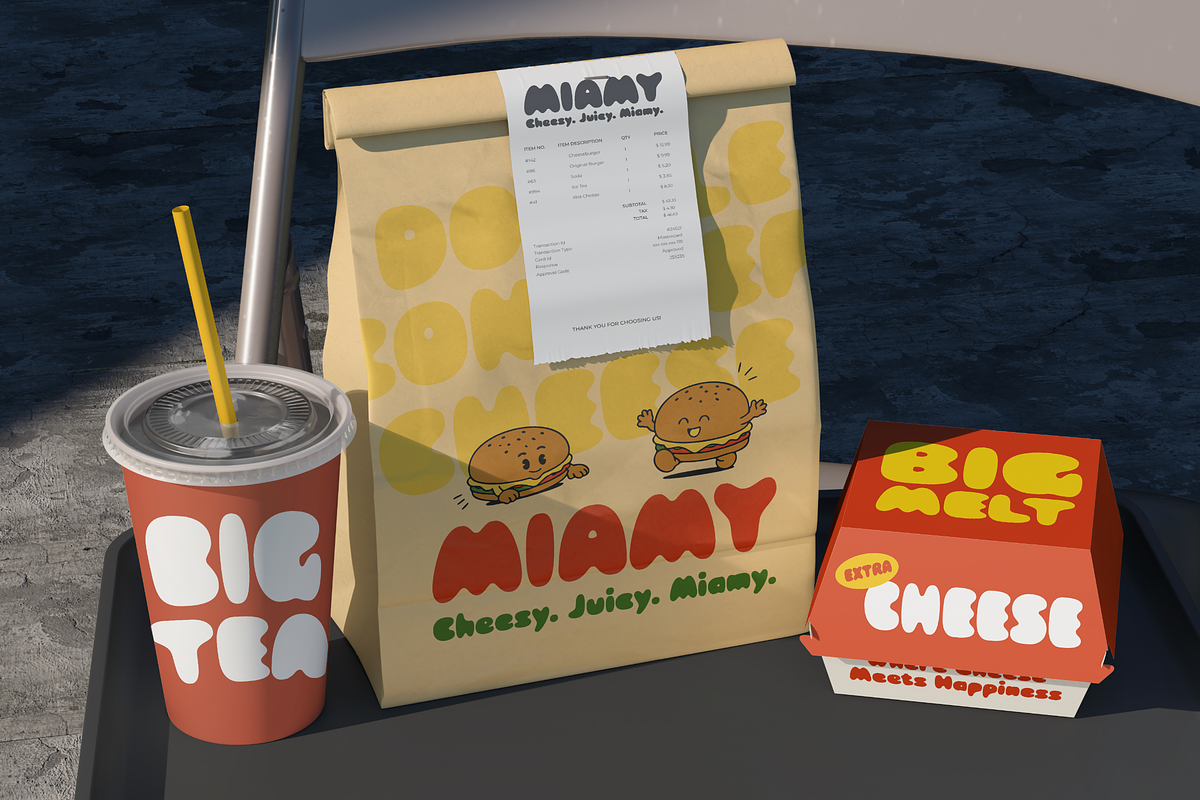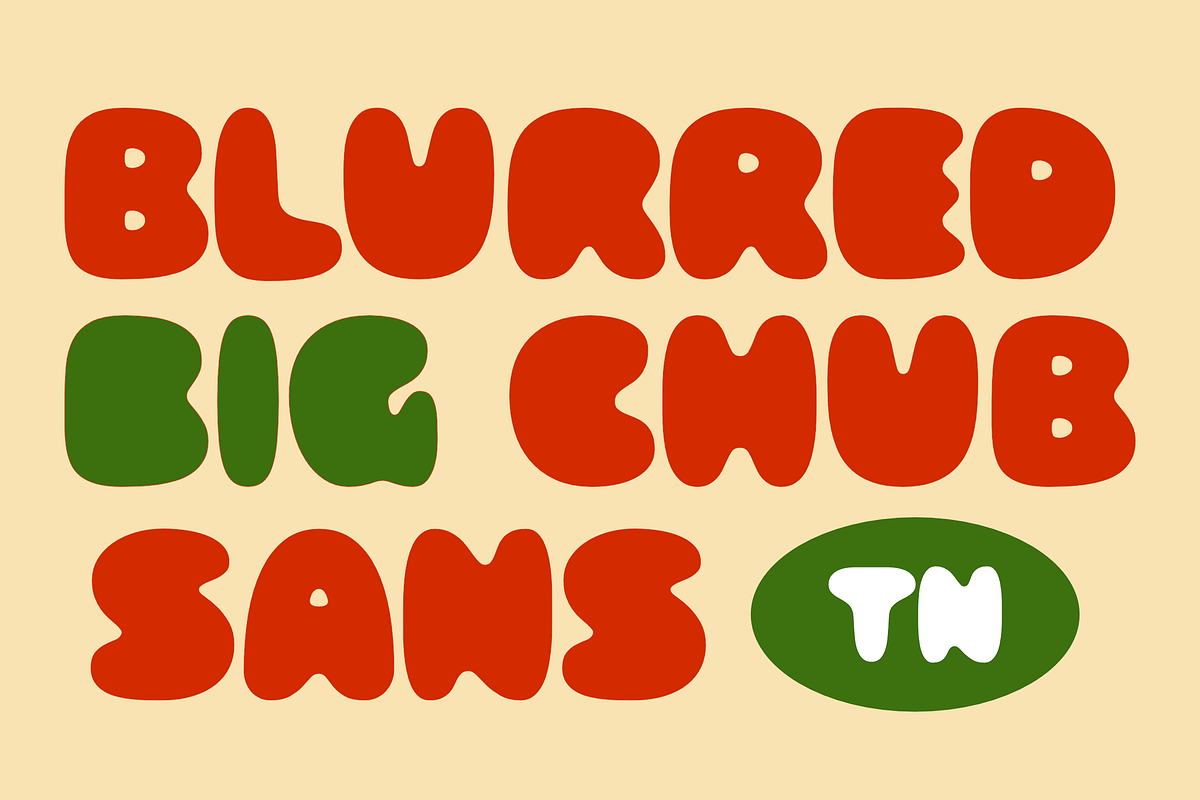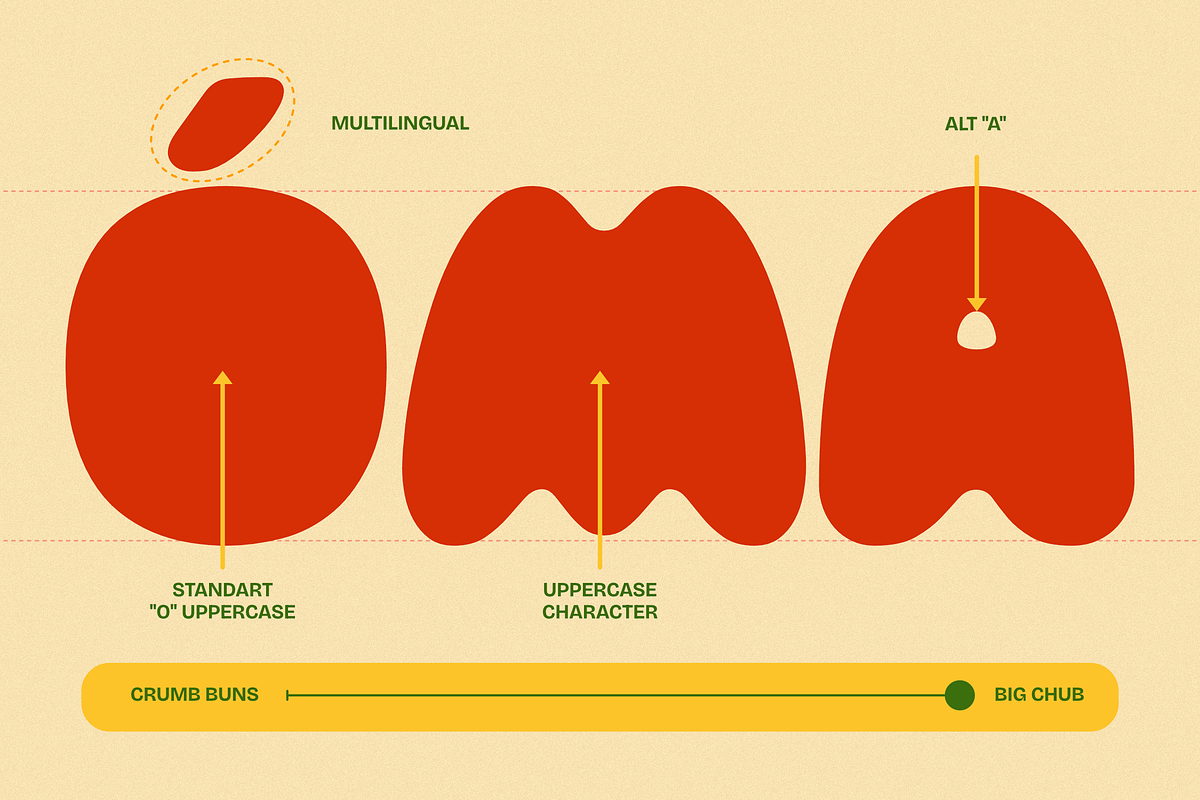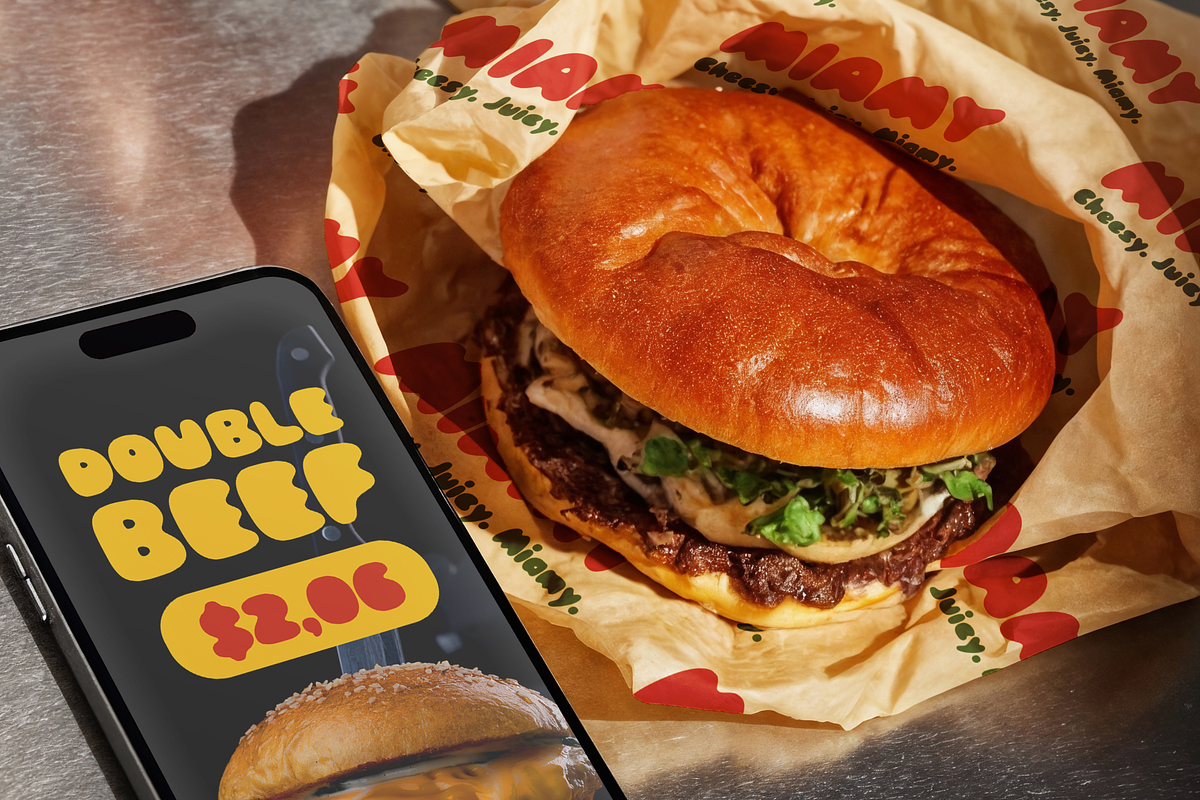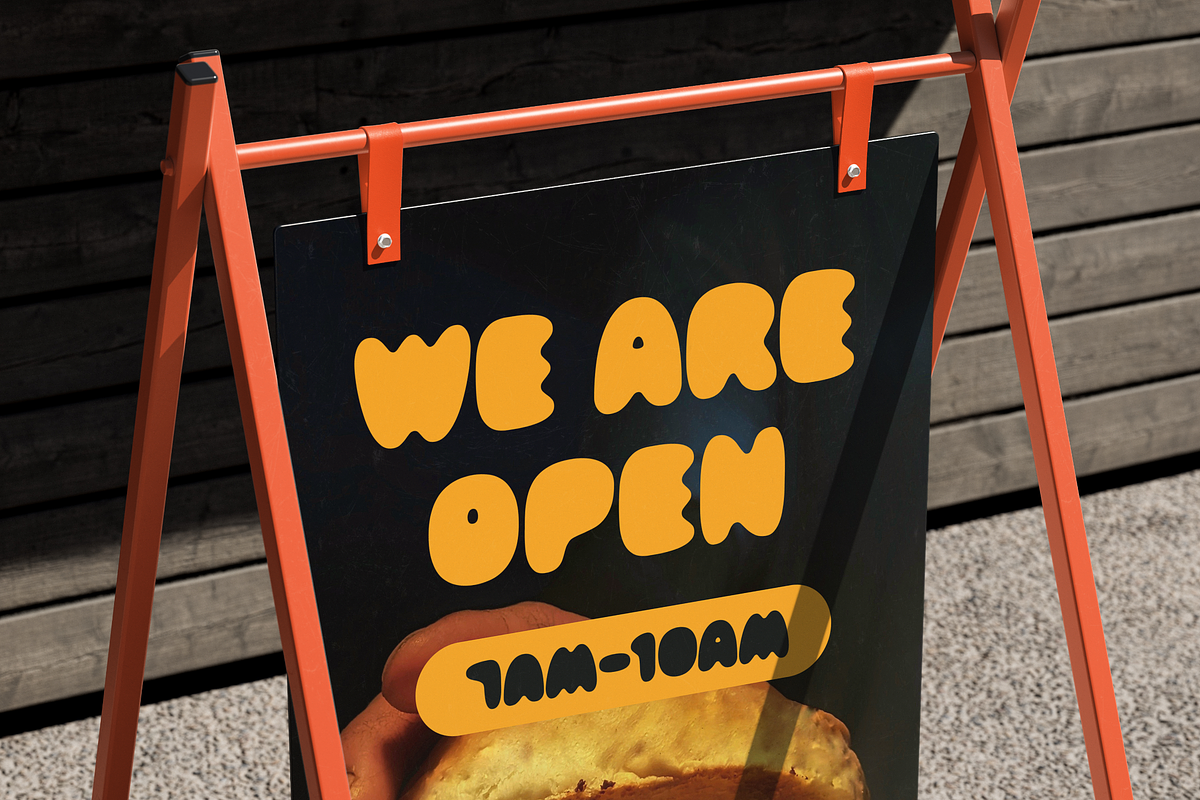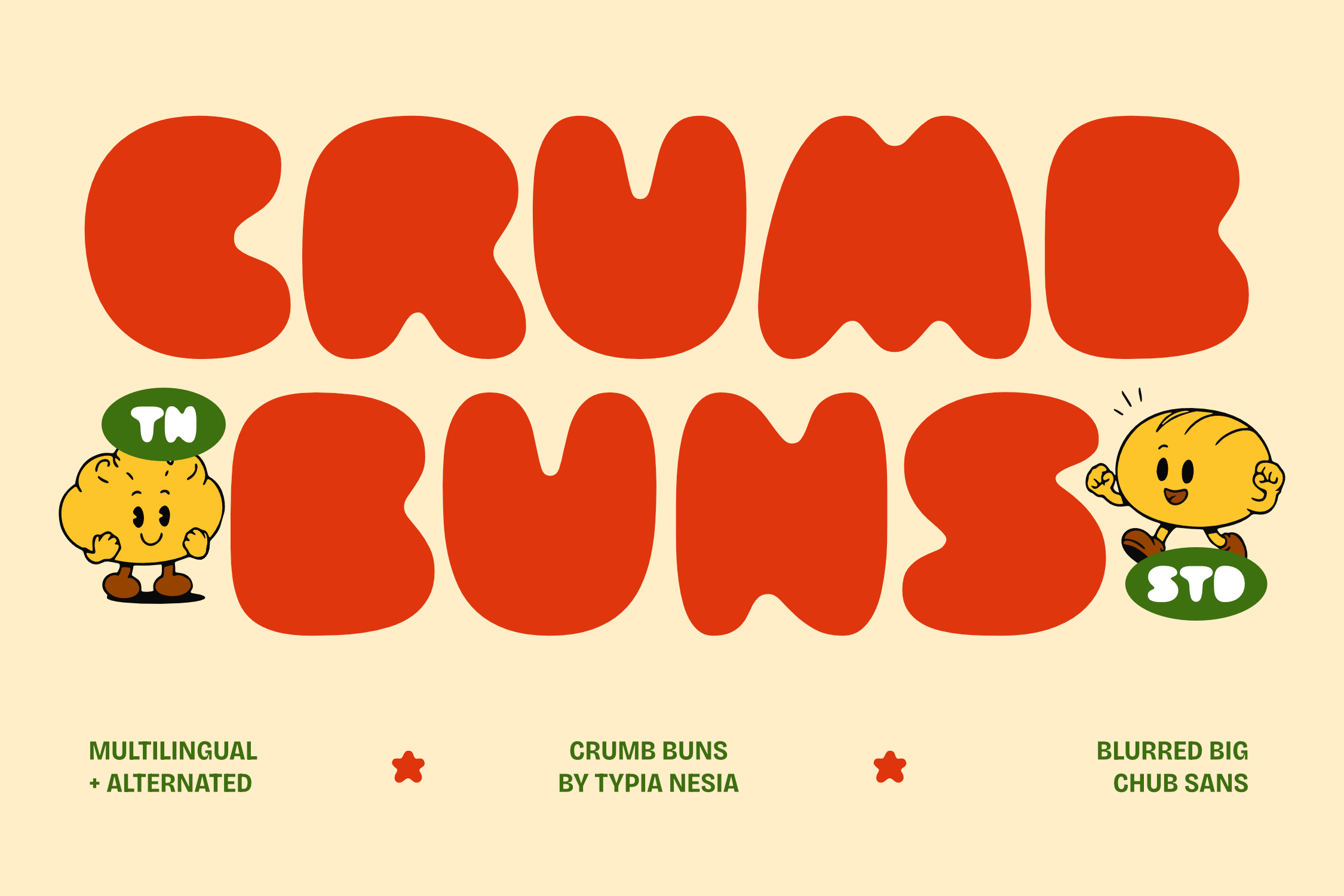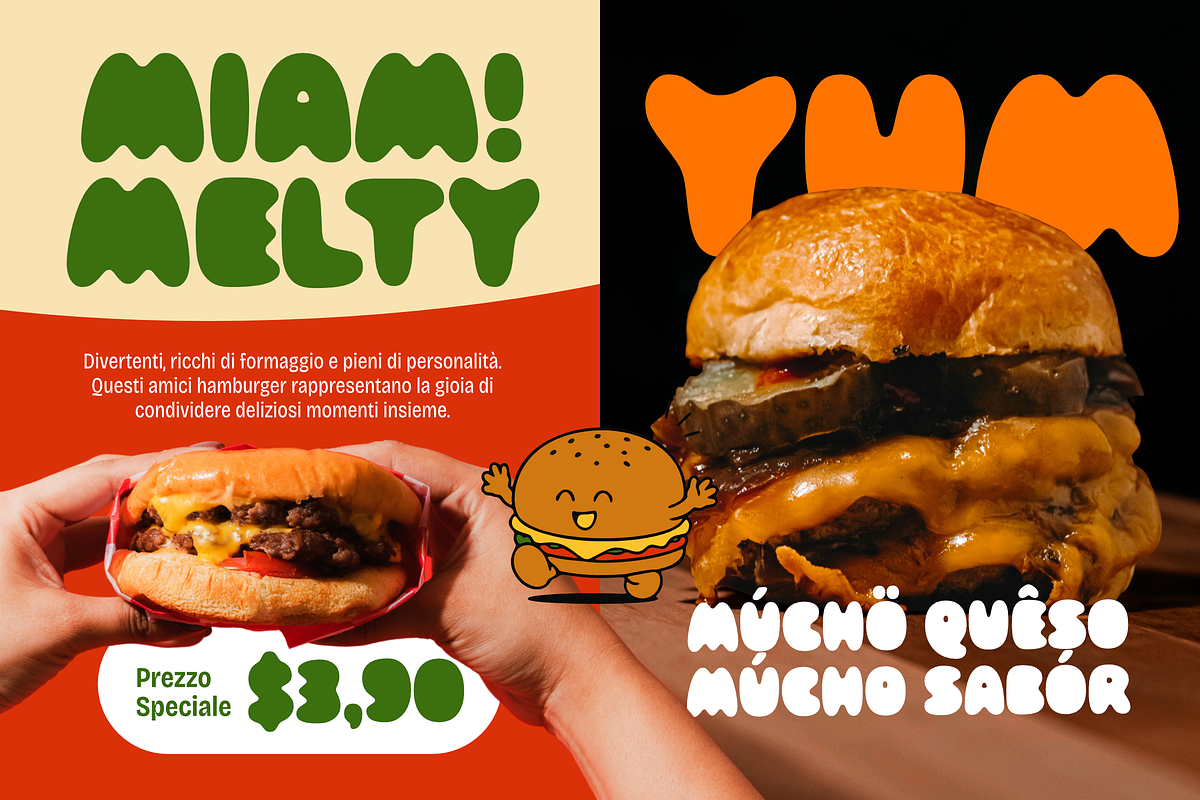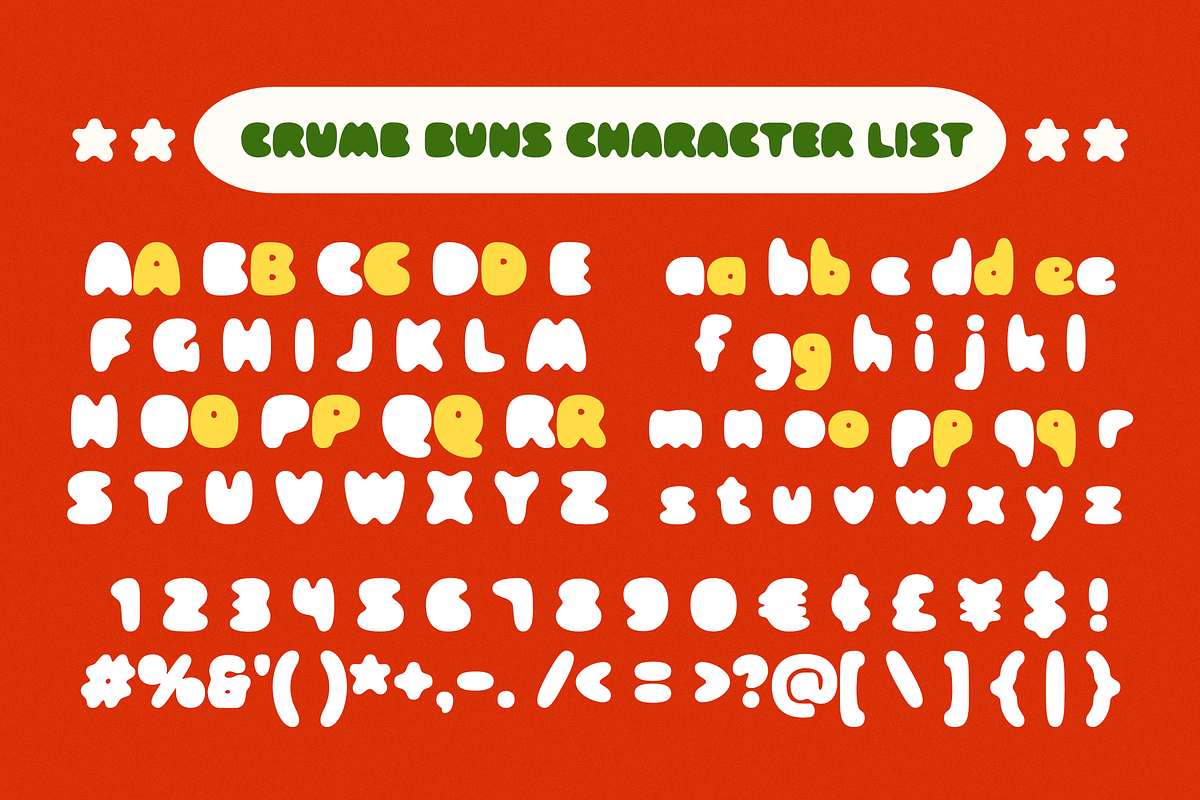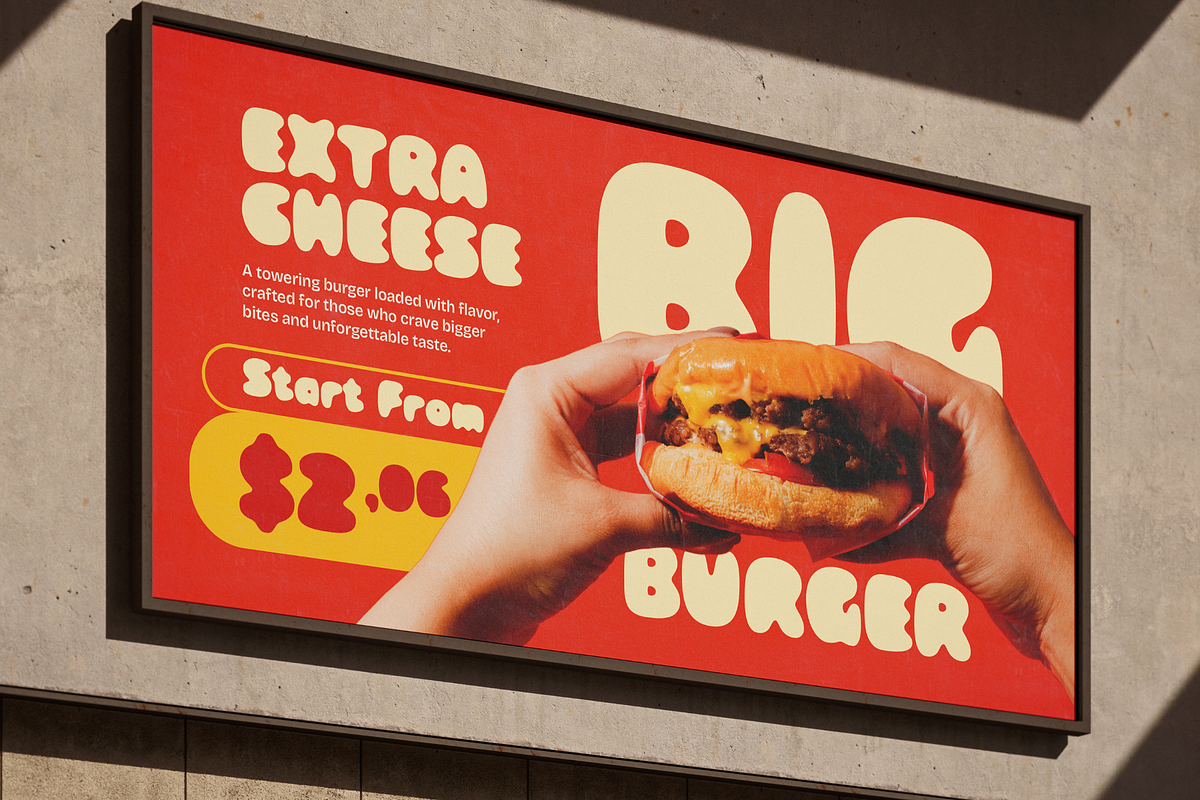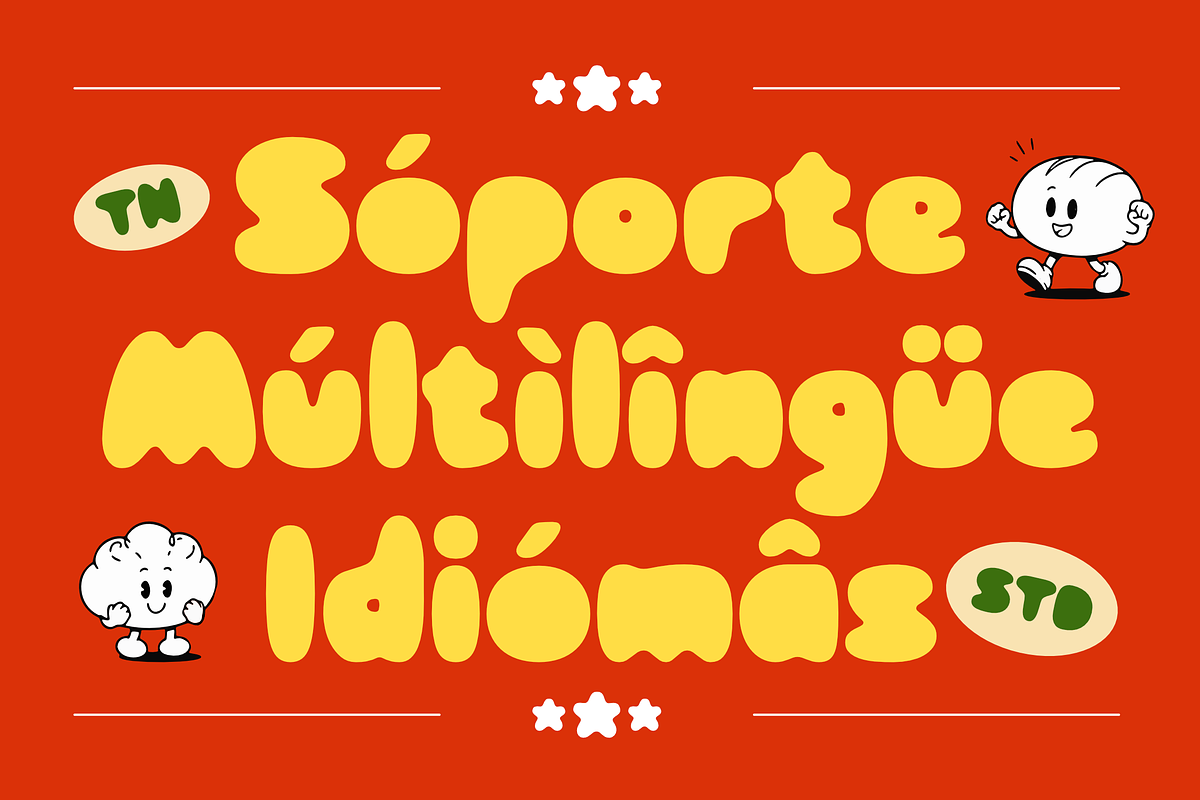
Crumb Buns - Retro Chunky Sans Font
Crumb Buns - Chunky Bubble Display Font for Kids & Playful Branding
Crumb Buns is a chunky bubble display font featuring soft rounded shapes, playful proportions, and a cheerful personality. Designed to bring warmth, fun, and friendliness to your designs, it creates an eye-catching look that instantly feels approachable and memorable.
Perfect for kids branding, snack and bakery packaging, children's books, stickers, posters, educational materials, social media graphics, party invitations, and other playful creative projects. It features multilingual support, alternates, numbers, punctuation, and bold rounded letterforms that make every design feel more lively and engaging.
Add a playful spark to your designs and create visuals that instantly make people smile.